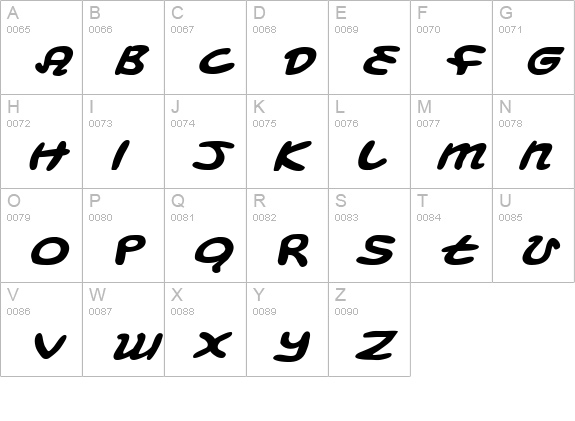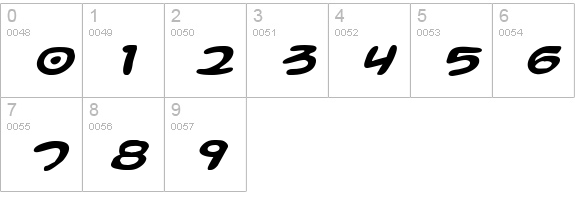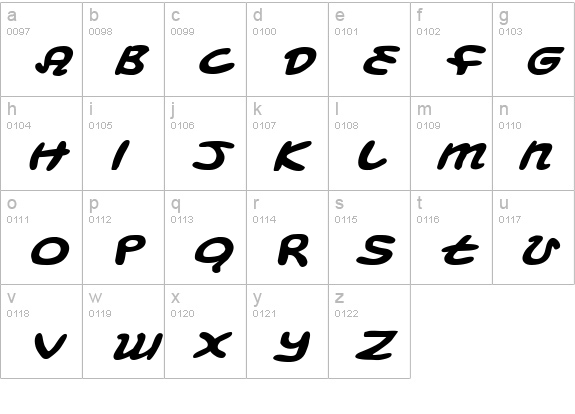
Magic Beans Expanded Italic Font Details
Magic Beans Expanded Italic is a distinctive, extended-width, italic variant in the Magic typeface family \xE2\x80\x94 well suited to design and typography projects.
Magic Beans Expanded Italic is a whimsical and elegant font that exudes charm and playfulness. With its elongated and slanted design, this typeface adds a touch of magic to any project. The italicized style gives a sense of movement and fluidity, making it perfect for projects that require a dynamic and modern look. This font is not only visually appealing but also versatile, making it suitable for a wide range of applications including branding, packaging, invitations, and more. Whether you're designing a poster, creating a logo, or crafting a social media post, Magic Beans Expanded Italic is sure to make your text stand out. Best of all, Magic Beans Expanded Italic is available for free download at FontsMarket.com. Now you can add a touch of enchantment to your projects without breaking the bank. Download this stunning font today and let your creativity soar with Magic Beans Expanded Italic!